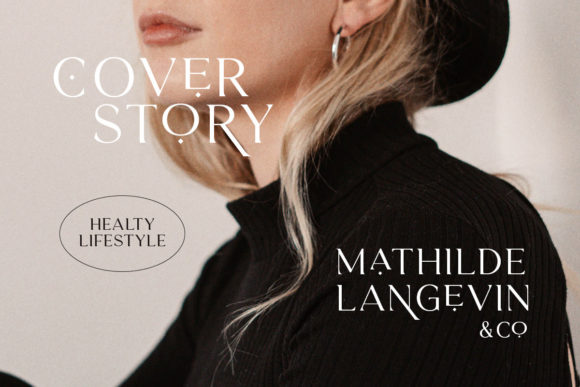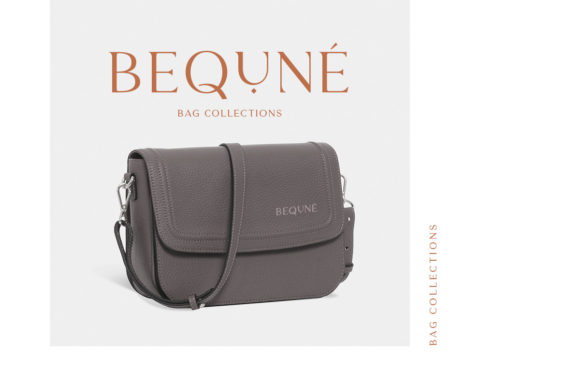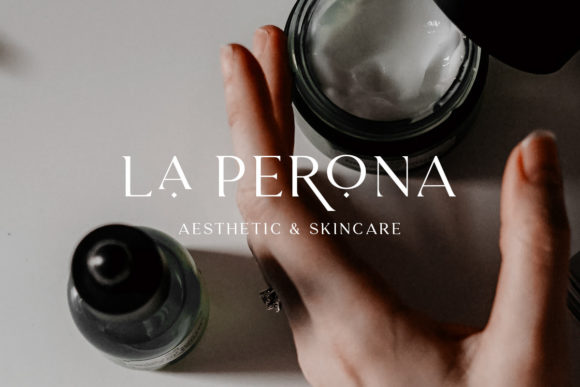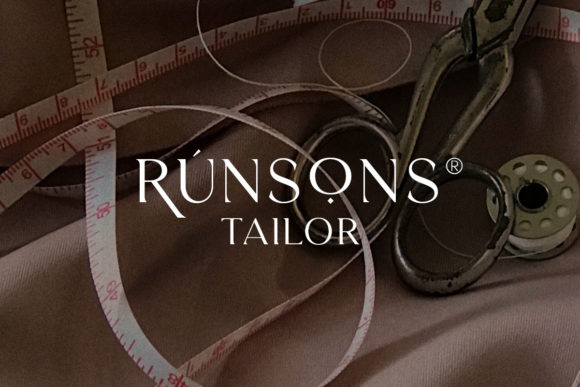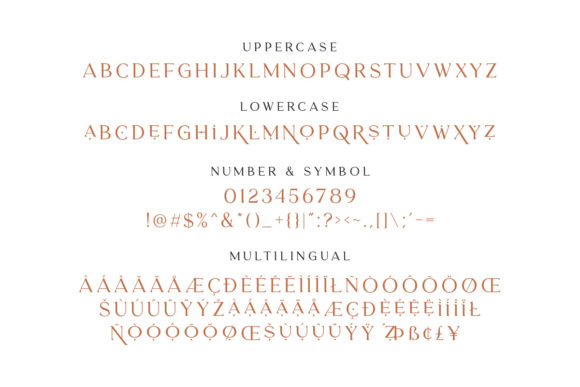
Introduction to Hisquins Font
Hisquins is a modern, elegant and luxurious serif font.
It looks beautiful on a variety of designs requiring a personalized style, such as wedding invitations, thank you cards, weddings, greeting cards, logos and so on .